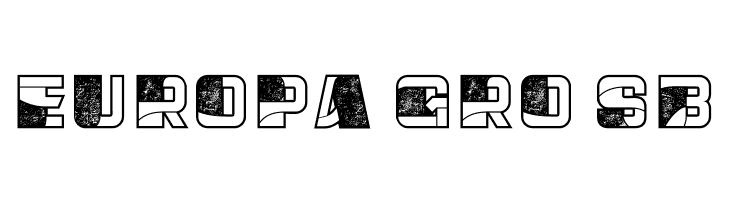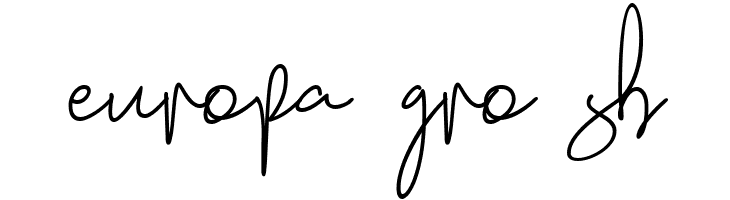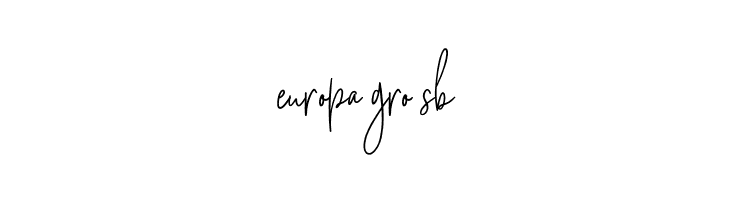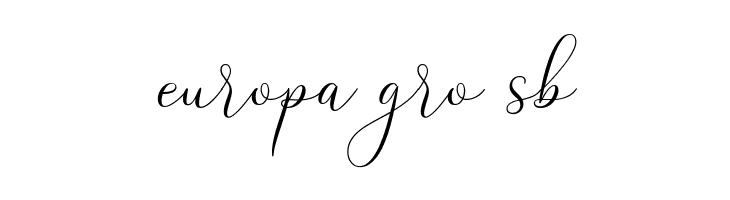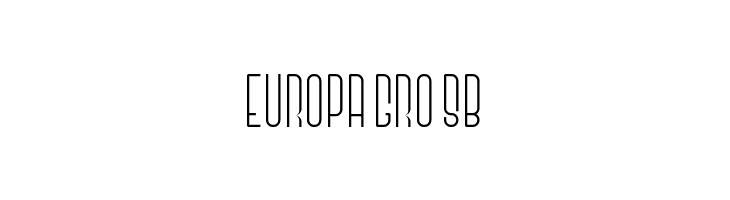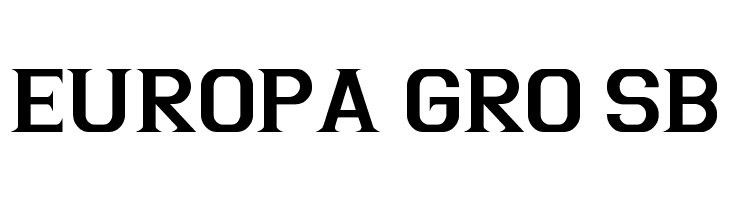
A playful, handwritten font with flowing, interconnected letterforms.
A modern, geometric font with tall, narrow characters and consistent stroke widths.
A bold serif font with angular serifs and a modern twist.
A bold, edgy font with sharp, angular edges and a distressed look.
A bold, angular font with a distressed, edgy style.
A bold, decorative font with a distressed texture and geometric design.
An elegant script font with flowing, cursive letterforms and sophisticated style.
A lively handwritten font with fluid, dynamic strokes and a playful style.